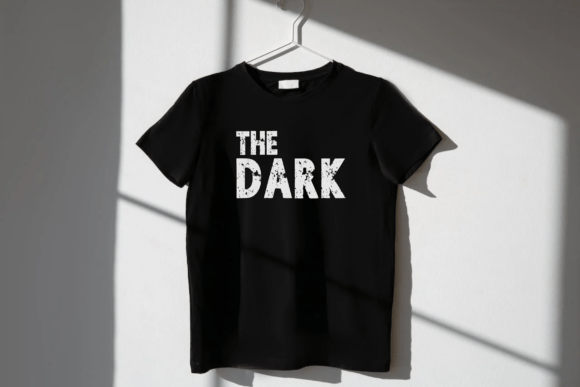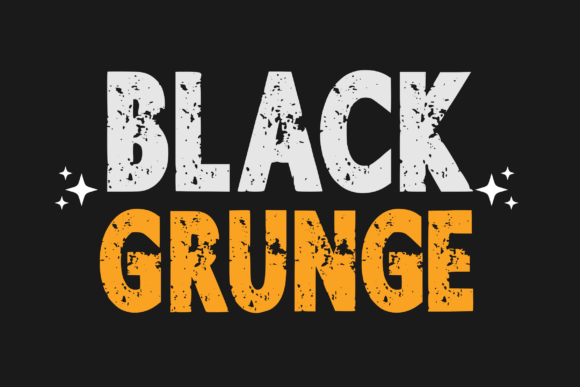
The Perfect Font for the Edgy Designer
Do you remember that moment when you stumbled upon a unique font that perfectly captured the essence of your creative vision? For many designers, this moment is a game-changer. It’s when the right font speaks to you, and you know you’ve found the perfect partner for your next project.
For those who crave a bold and gritty look, the Hello Grunge Font is here to inspire. This contemporary typeface is designed to add texture and character to your designs, making it perfect for sublimation projects, comic titles, and more. With its speckled texture, every word comes alive, giving your projects a one-of-a-kind edge. Whether you’re designing t-shirts, mugs, or animations, the Hello Grunge Font is a valuable addition to any designer’s toolkit.
Hello Grunge Font Key Features
- Font Family: Hello Grunge Font, a distressed, grunge-style font
- Unique Characteristics: Distressed texture, irregular letterforms, and a worn, vintage look that adds a touch of grunge aesthetic to designs
Hello Grunge Font Review
Overall, I’m quite pleased with the Hello Grunge Font, but like any font, it has its pros and cons. Here’s my honest review.
- The font’s distressed, grungy aesthetic is perfect for creating a vintage or retro vibe in your designs.
- The font comes in multiple weights, from light to bold, giving you flexibility in your design choices.
- The font is highly legible, even in smaller sizes, making it suitable for body text.
- The font includes a wide range of characters, including international characters, which is a bonus.
- The font may not be suitable for formal or professional designs, as its grungy aesthetic may come across as unpolished.
- The font’s distressed look may be distracting if overused, so be mindful of your design choices.
- The font may not work well in certain color schemes, especially those with bright or bold colors.
Overall, I think the Hello Grunge Font is a great addition to any designer’s toolkit. Its versatility and wide range of weights make it a great choice for various design projects. However, it’s essential to use it thoughtfully and consider its limitations to get the best results.
The Hello Grunge Font is perfect for creating a distressed, vintage look in your designs. Use it for:
- Music festival posters and flyers
- Alternative fashion branding and marketing materials
- Rock-inspired artwork and graphics